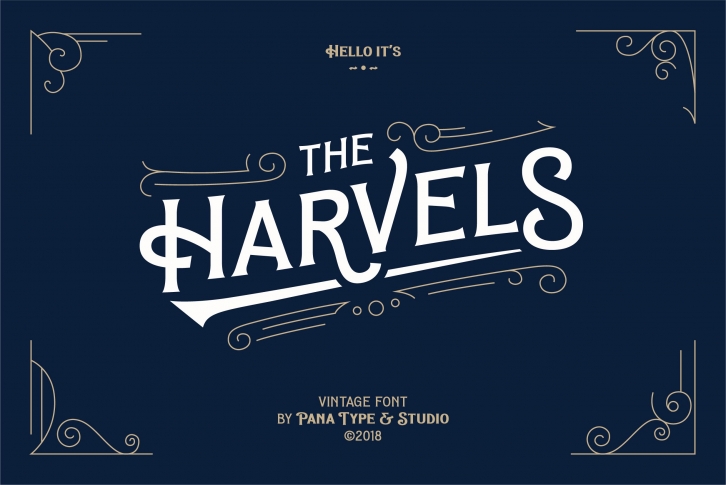
The Harvels is a vintage font made for the purposes of vintage display design, fonts available in two styles regular and bold to suit your design needs, and equipped with opentype features and also includes ornaments set vector that provide more variation in design. It is perfect for branding, advertising, Logotype, etc.
- Harvels Swashes
- Harvels Ornaments ( vector )
Opentype Features :
- Stylistic Sets